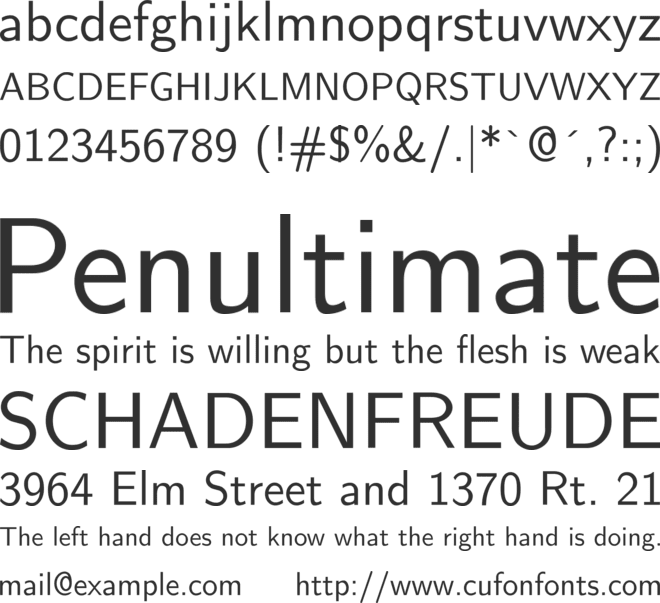
Free and Premium Quality Fonts - Best Premium FontsThe popular l a t e x font typefaces are originated from four families. The other font typefaces sans serif and typewriter aka. Renewcommandfamilydefaultsfdefault will switch to using sans serif for everything except mathematics.
These experimental options use the latex t1 font encoding for maths.
Sans serif fonts latex. Decorations serif and sans serif serifs are small features at the end of letter strokes. By default latex uses computer modern a family of typefaces. Lm roman lm sans serif lm typewriter lm dunhill. By default in standard l a t e x classes the serif typeface aka.
Download the sans serif font by casady greene. Documentclassarticle usepackagesectsty allsectionsfontbfseriessffamily omitting bfseries still gives bold font begindocument sectionsection enddocument. The following commands can be used. There are hundreds if not thousands of typefaces or font familiescommon examples include times courier and helveticathese families can generally be grouped into three main categories.
For a complete list of available font sizes see the reference guide. A lot more l a t e x font typefaces are available see the reference guide. See typeface on wikipedia for more details on fonts and font families. Roman font is used.
Computer modern default in standard l a t e x classes. The default latex font computer modern has serifs. Open an example in overleaf. The sans serif will be computer modern sans unless you also put usepackagehelvet in the preamble in order to make the default sans be helvetica or usepackageavant for avant garde etc.
Monospace can be used by entering some specific commands. The popular l a t e x font typefaces are originated from four families. The sans serif font has been downloaded 76895 times. Lm roman lm sans serif lm typewriter lm dunhill.
Different styles and therefore fonts with similar design features are summarized in a font family. It looks like you are trying to change the sections font to sans serif and usual bold letters. A lot more l a t e x font typefaces are available see the reference guide. Cm roman cm sans serif cm typewriter.
If you want it to be in sans serif through out the document then you can do it with sectsty package. Cm roman cm sans serif cm typewriter.